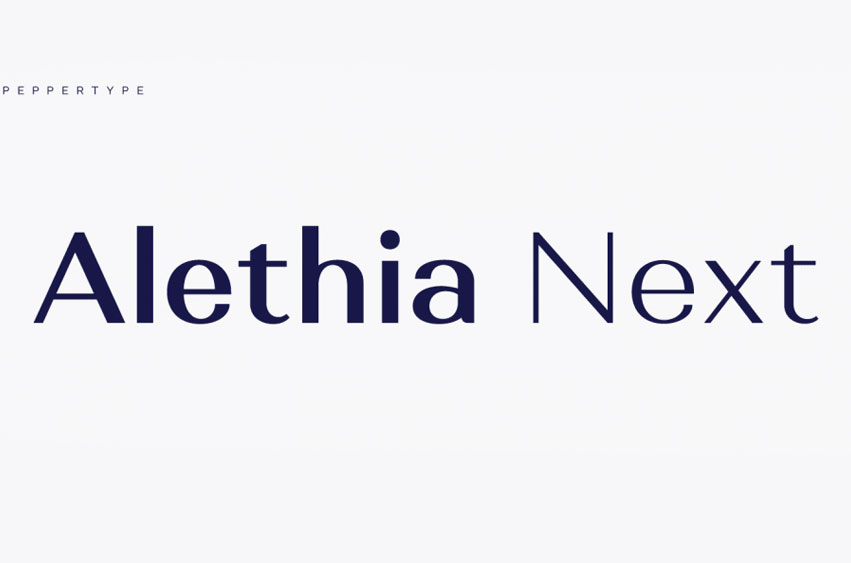
Alethia Next Font
Alethia Next Fontis an elegant sans serif typeface designed with high contrast in all weights, intended to serve as an electronic-typeface for display in various editorial projects, such as corporate brochures or magazines as an antidote for serif fonts commonly found today.
Alethia Next features 7 weights with matching italics and upright italics to cover various Latin-based languages as well as major Cyrillic languages like Bulgarian locale forms. Packed with OpenType features like ligatures small caps and plenty of customization options – Alethia Next supports them all!